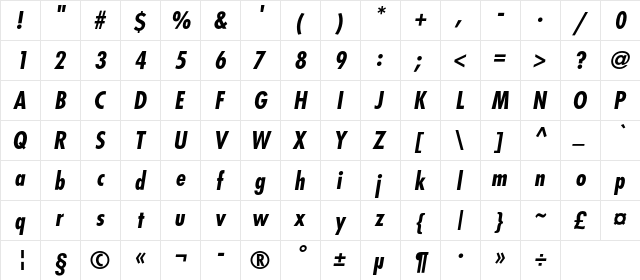
FavoritCondC Bold Italic Font Preview
Design Context for FavoritCondC Typeface
FavoritCondC is a composed and adaptable typeface that performs quietly and consistently across a wide range of design contexts. The dynamic lean of this cut emphasises speed and emphasis in any layout. The heavy weight commands attention and anchors typographic hierarchies. The condensed width makes it efficient for tight spaces without sacrificing legibility.
Pro Tip: Try FavoritCondC for annotation and caption copy alongside an upright companion — the contrast in angle creates a dynamic but ordered typographic system.